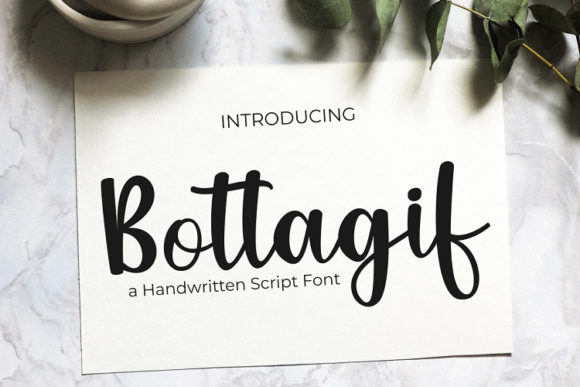
Introducing Bottagif Font: A Beautiful Calligraphy Script for Modern Aesthetes
Journey into the world of Bottagif, a captivating script font that dances across your designs with grace and elegance. This stunning creation from the visionary minds at Rvandtype is not just a font; it's an artistic expression waiting to transform your creative projects into masterpieces.
With its delicate strokes and fluid lines, Bottagif evokes a sense of sophistication and luxury that will elevate any design concept. It's a symphony of curves and flourishes, each letter crafted with meticulous attention to detail, resulting in a font that exudes beauty and charm.
Whether you're designing wedding invitations, branding materials, or social media posts, Bottagif has the power to captivate and inspire. Its timeless appeal adds a touch of elegance to any project, making it the perfect choice for designers seeking a font that speaks of sophistication and grace.
Dive into the world of Bottagif and unleash your creativity like never before. This enchanting font will add a touch of magic to your designs, turning them into works of art that resonate with your audience. Its versatility and charm know no bounds, making it the perfect addition to your font collection.
So, embark on a creative journey with Bottagif, where every letter tells a story and every design becomes a masterpiece. Discover the beauty of modern calligraphy and elevate your designs to new heights of elegance and sophistication.